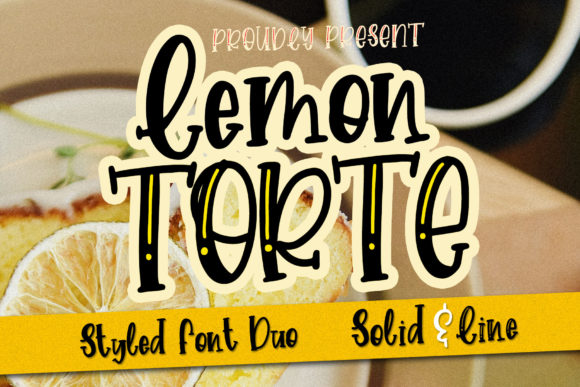
Introducing Lemon Torte Font, a delectable treat for your digital designs. This enchanting script font, crafted by the talented dmletter31, is a symphony of sweetness, just like its namesake, the delectable Lemon Torte. Prepare to tantalize your senses with its beautiful strokes and captivating curves.
Unleash the charm of Lemon Torte Font and immerse yourself in a world of delightful possibilities. Its whimsical nature adds a touch of magic to your projects, whether you're creating heartfelt invitations, cheerful posters, or captivating social media graphics. Let your imagination run wild as you explore the endless creative avenues that this font opens up.
With Lemon Torte Font, you'll have the power to transform ordinary words into extraordinary expressions. Its elegant and playful style adds a touch of sophistication to your designs, making them stand out from the crowd. Prepare to captivate your audience and leave a lasting impression with every visual you create.
Elevate your designs to new heights of creativity with Lemon Torte Font. Its versatility knows no bounds, making it the perfect choice for a wide range of projects. Experiment with different colors, sizes, and effects to create unique and eye-catching visuals that will leave your audience in awe.
Join the growing community of designers who have fallen in love with the irresistible charm of Lemon Torte Font. Let your imagination soar and create designs that resonate with your audience, leaving them craving for more. Embrace the sweetness of Lemon Torte Font and embark on a creative journey that will leave you inspired and fulfilled.